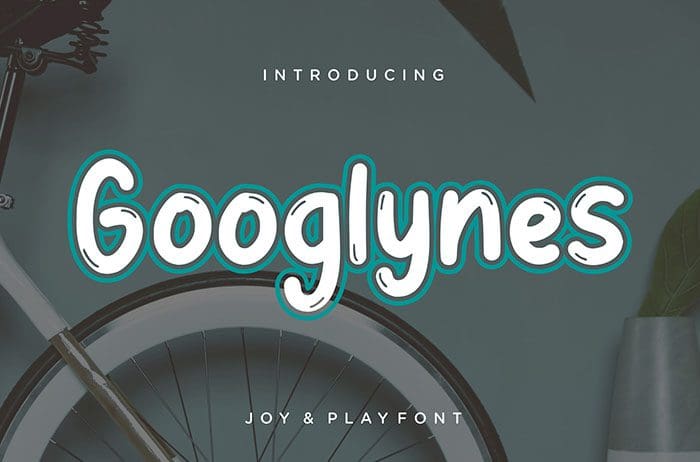
Googlynes is a Display Font that looks natural hand-drawn. Googlynes is perfect for branding projects, logo, wedding designs, labels, photography, and more. Thanks to Creatype Studio for sharing this font! Take a look at this portfolio for more of his stunning fonts.
Designed By : Creatype Studio